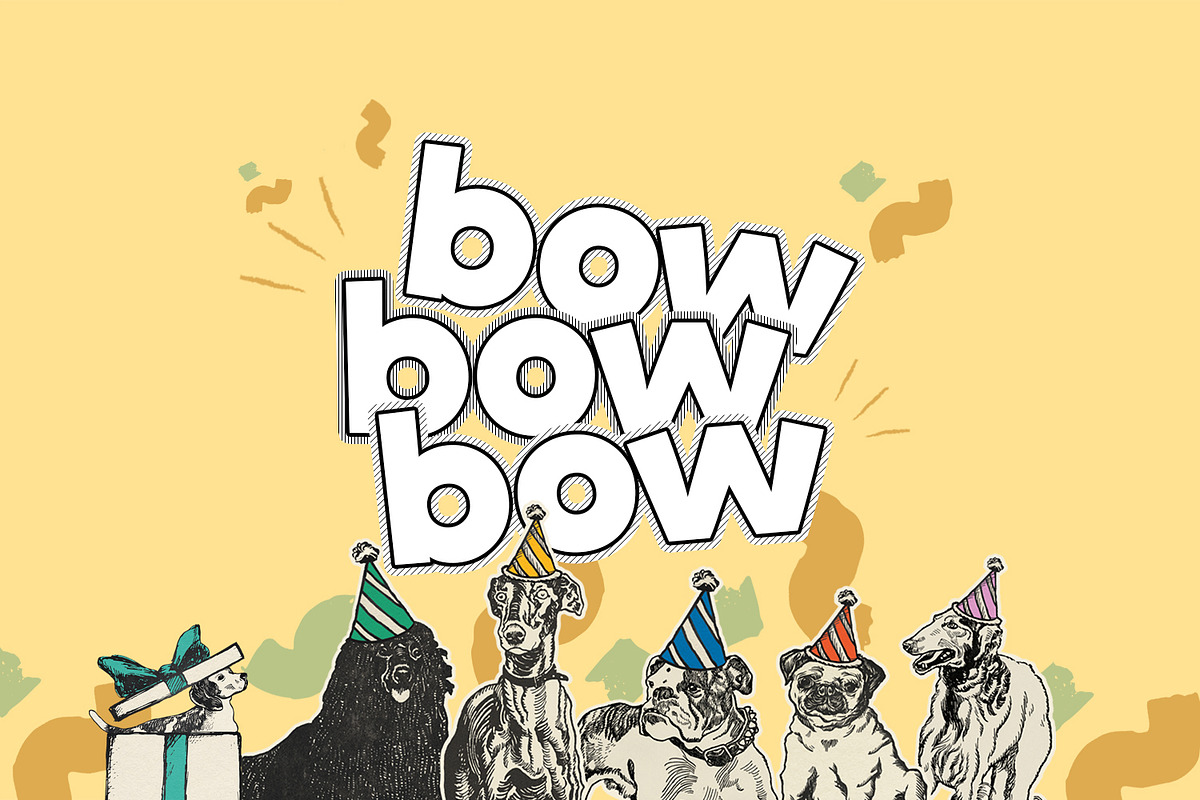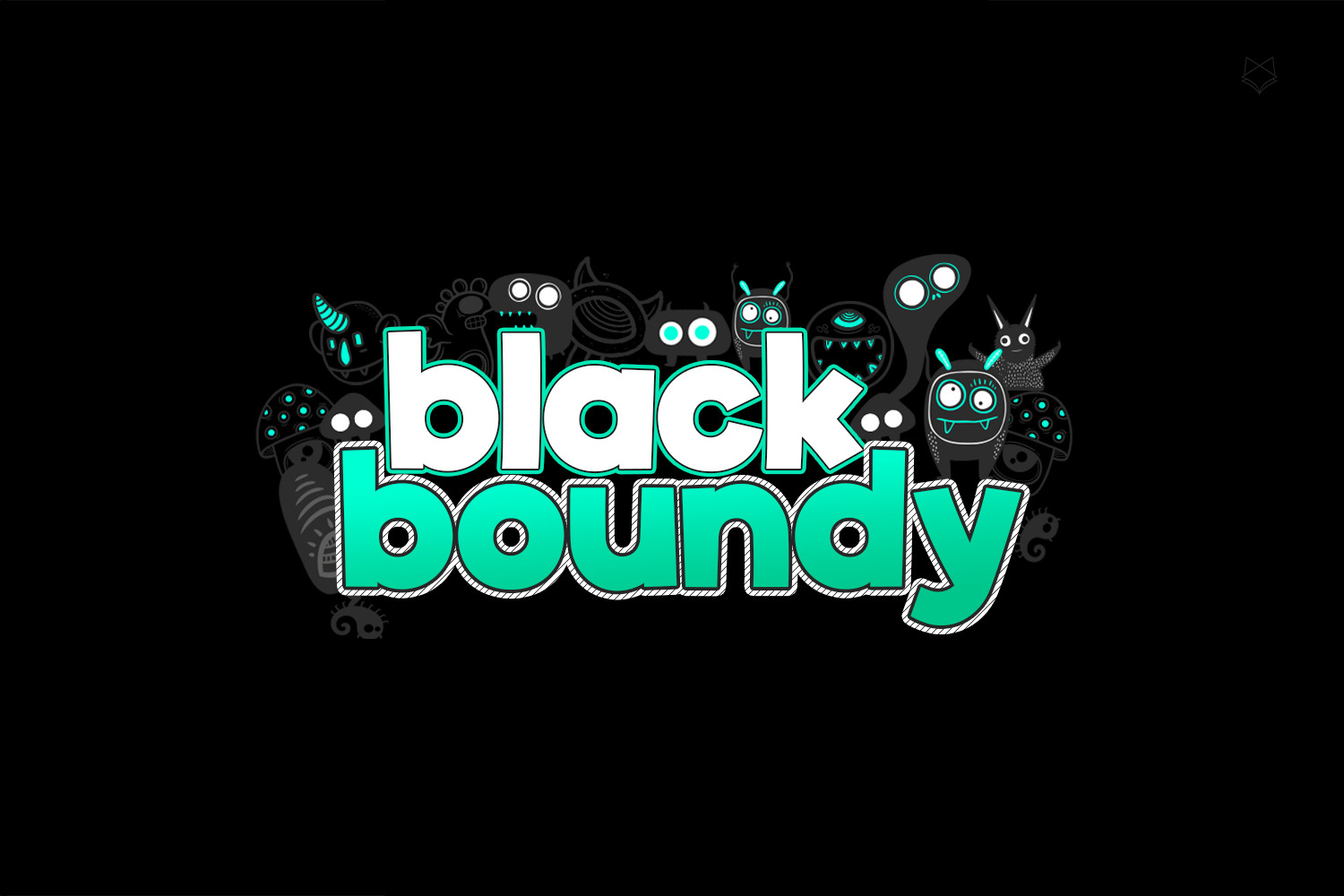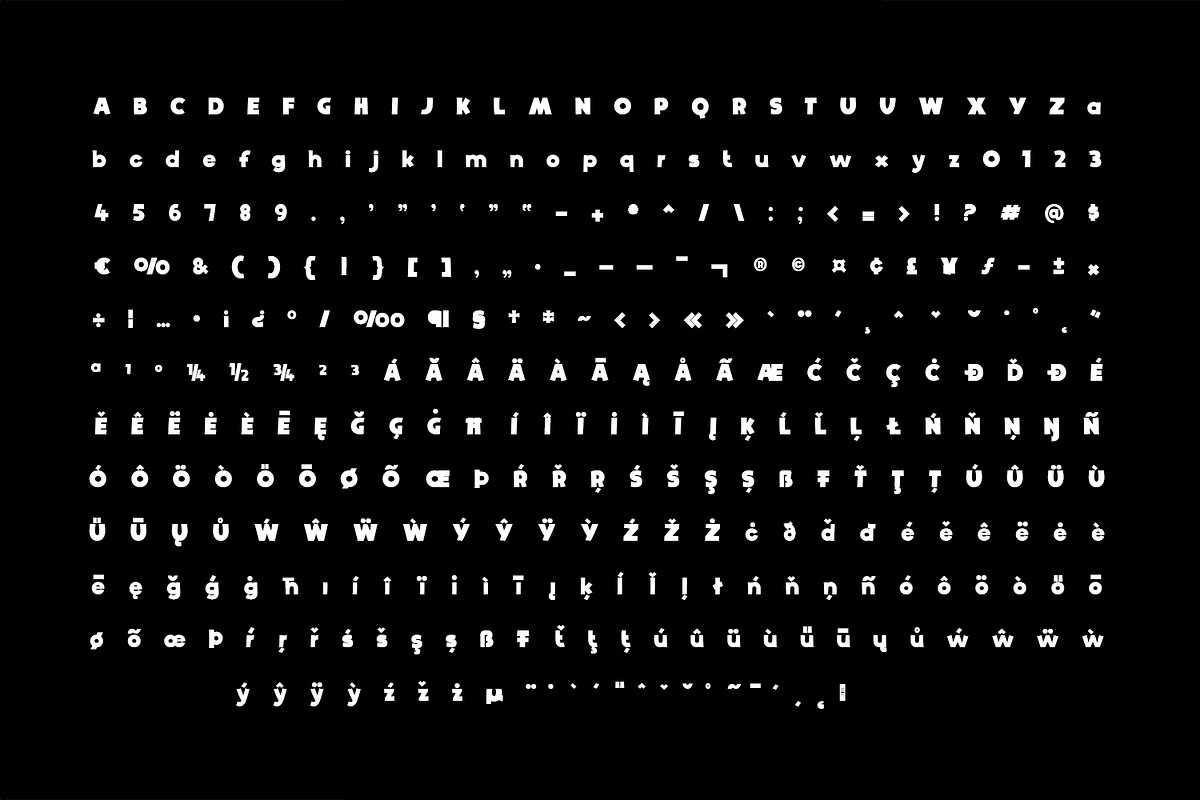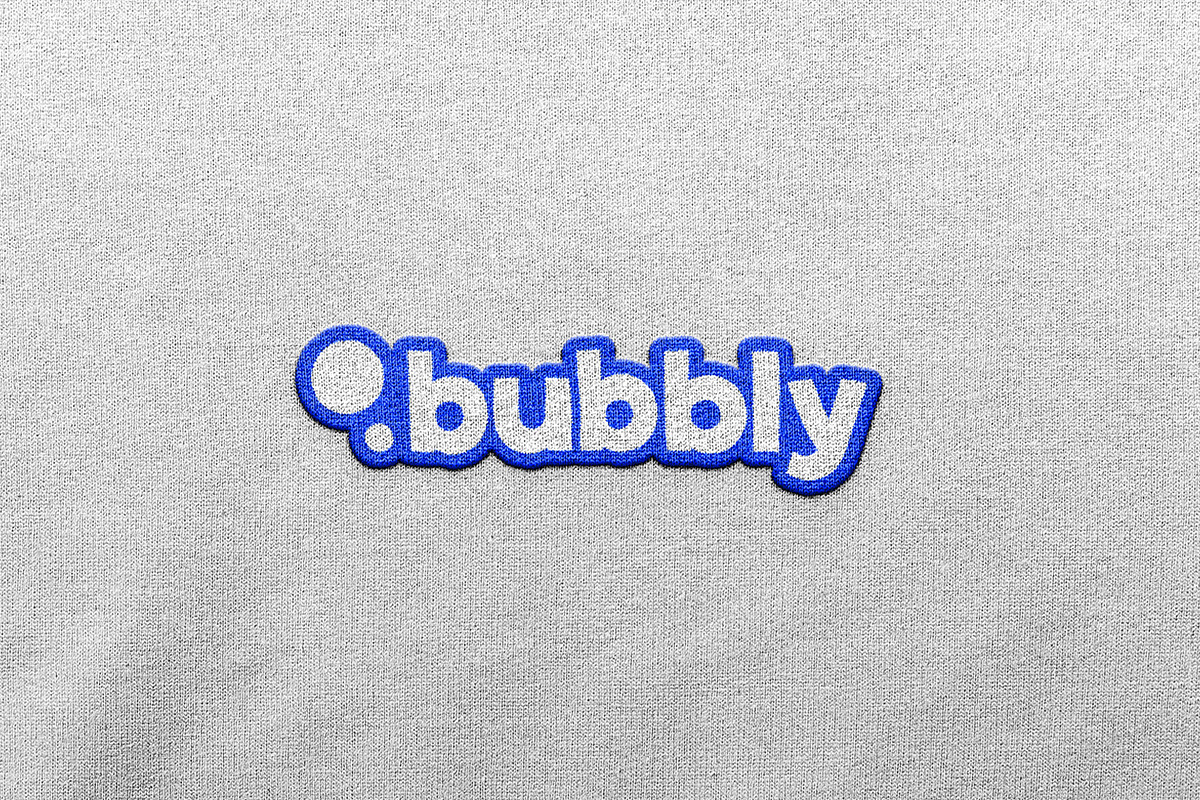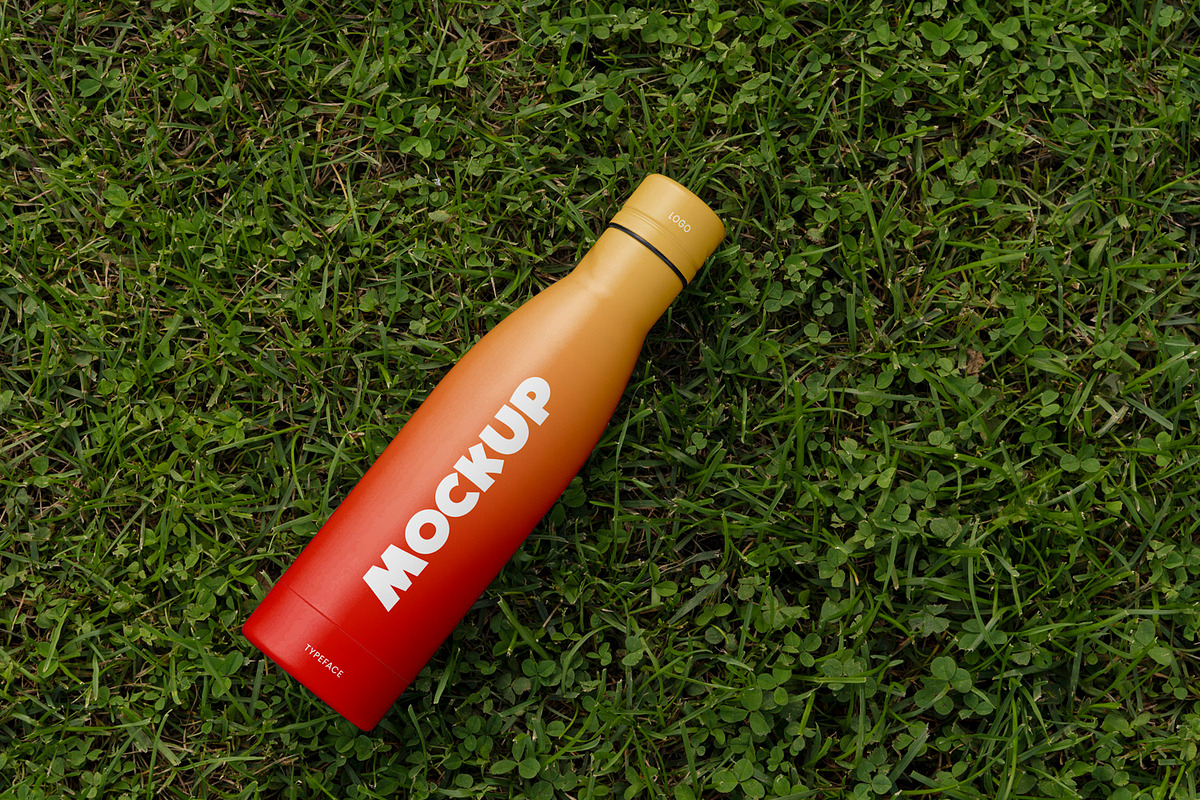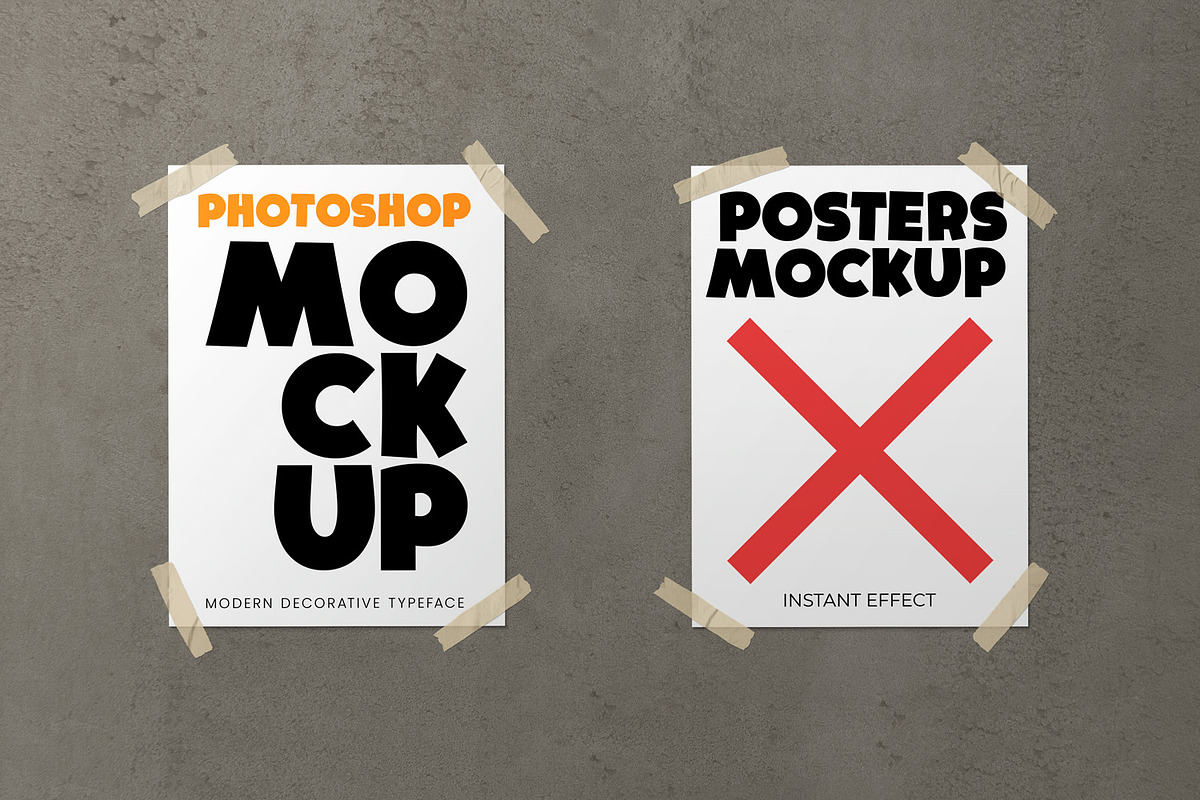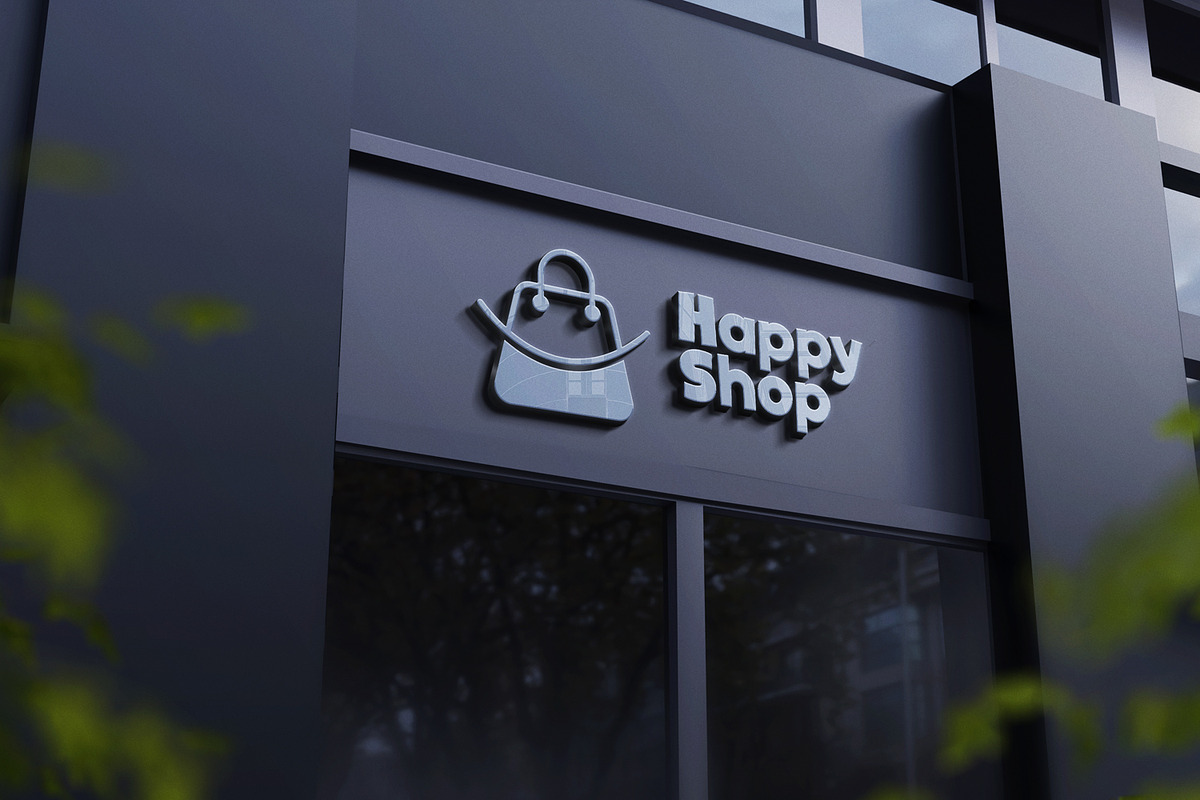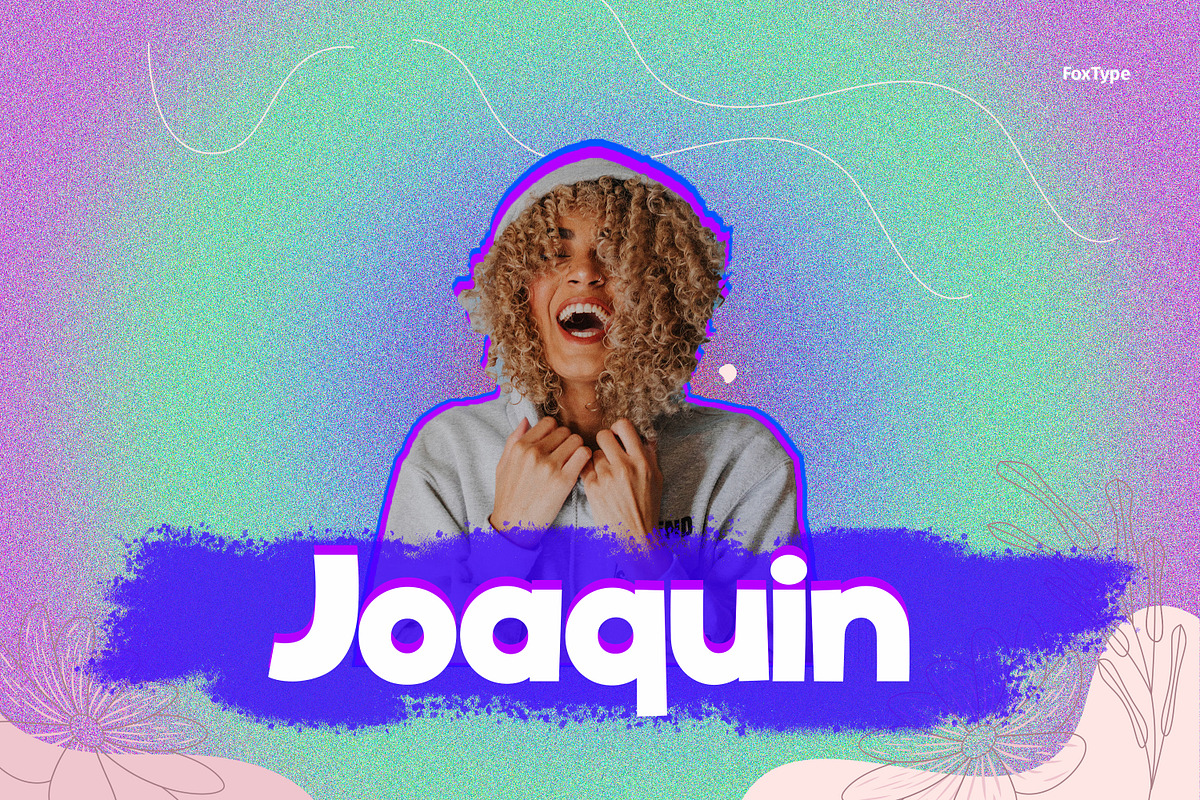
Black Boundy Typeface
Black Boundy Display is a Unique Modern Elegant Typeface with Web-fonts. It's a very versatile font that works great in large and small sizes. Black Boundy Font would perfect for branding, logos, headlines, Captions. or simply as a stylish text overlay to any background image. Strong capitals and a smooth, open lowercase are effective in a variety of applications. It's shown a clean, minimalist, warmth, quirky, yet still purposed to be versatile and easy to read.